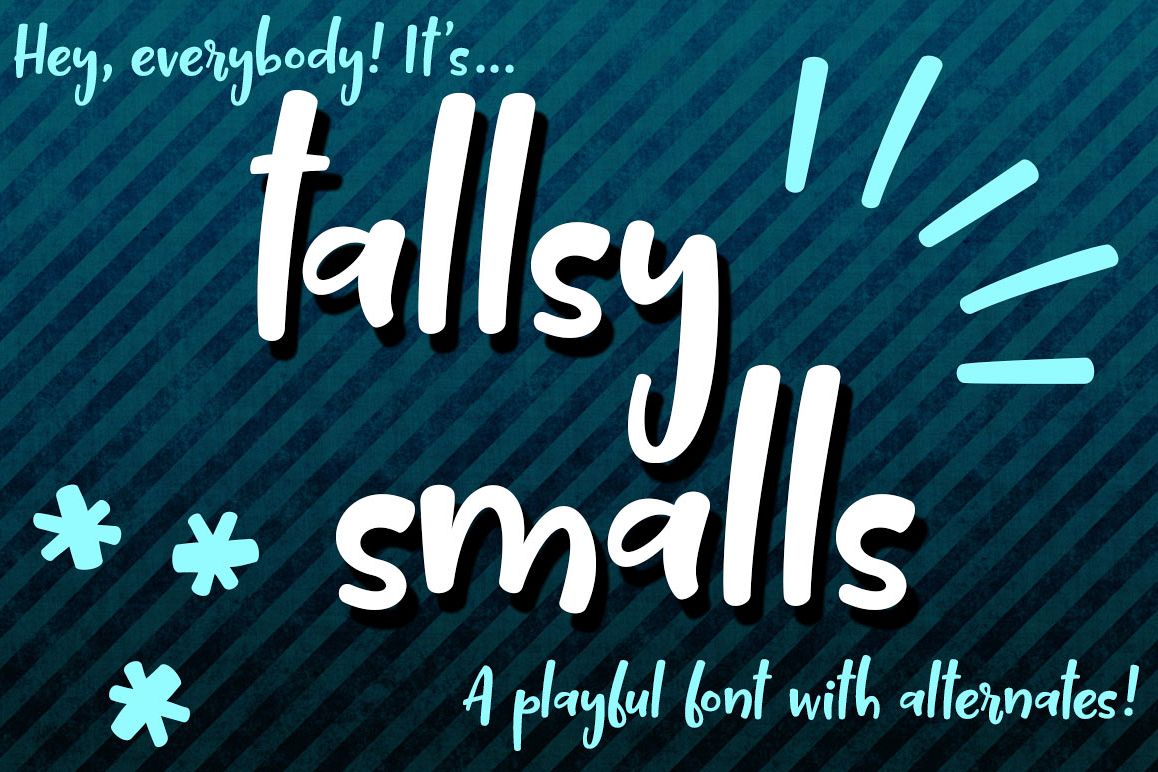
Tallsy Smalls
Tallsy Smalls: a name inspired by a little cat who was able to get to the top of a very high bookcase. (Come on, cat people -- we all have 1,001 nicknames for our cats.)
This is a fun little font, cleaned up to the extreme so that every letter has smooth curves and sleek lines -- perfect for crafters! I liked the letters so much I made an additional set of them with tails, so there's a stylistic alternate set of connectors!
For those who like to work within one font, the connecting script letters are stylistic alternates in the regular Tallsy Smalls font file. But if you don't have easy access to OpenType alternates, never fear! I've also created Tallsy Smalls Script, which places all of the connecting script letters in the standard spots.
• Connecting stylistic alternates for all lowercase letters (OpenType feature)
• Numbers 0-9 and a full set of puncutation marks
• Additional "extra tall" talls: b, d, f, g, h, j, k, l, p, q, t, and y. (OpenType feature)
• Over 200 accented characters for foreign language support (based on regular letters)
• Connecting versions of the lowercase letters from Tallsy Smalls
• The same uppercase, numbers, and punctuation as Tallsy Smalls
• Over 200 accented characters for foreign language support (based on connecting lowercase letters)
Note: the uppercase letters are the same in both of these font files. Tallsy Smalls Script merely takes the alternate lowercase letters from Tallsy Smalls, and puts them in a separate font so they're easier for those without convenient OpenType feature access to use.